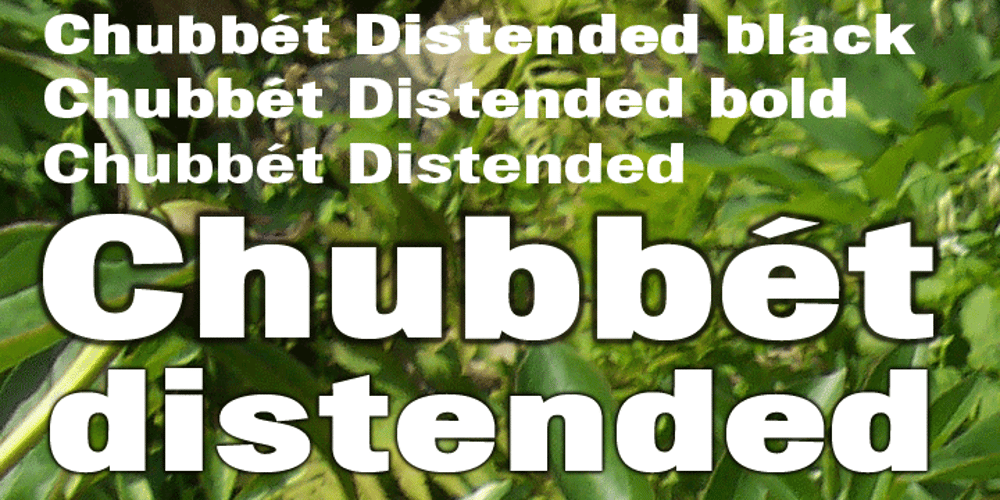
Chubbet Distended
Chubbet Distended font
Chubbet Distended Font Family was designed by Stephen Boss and published by Emboss. Chubbet Distended contains 6 styles and family package options. Chubbét (pr. Chub-bay) Distended is the extended version of Chubbét. The regular weight starts off plumper than plump, then it expands inward until there is a minimal amount of positive space.